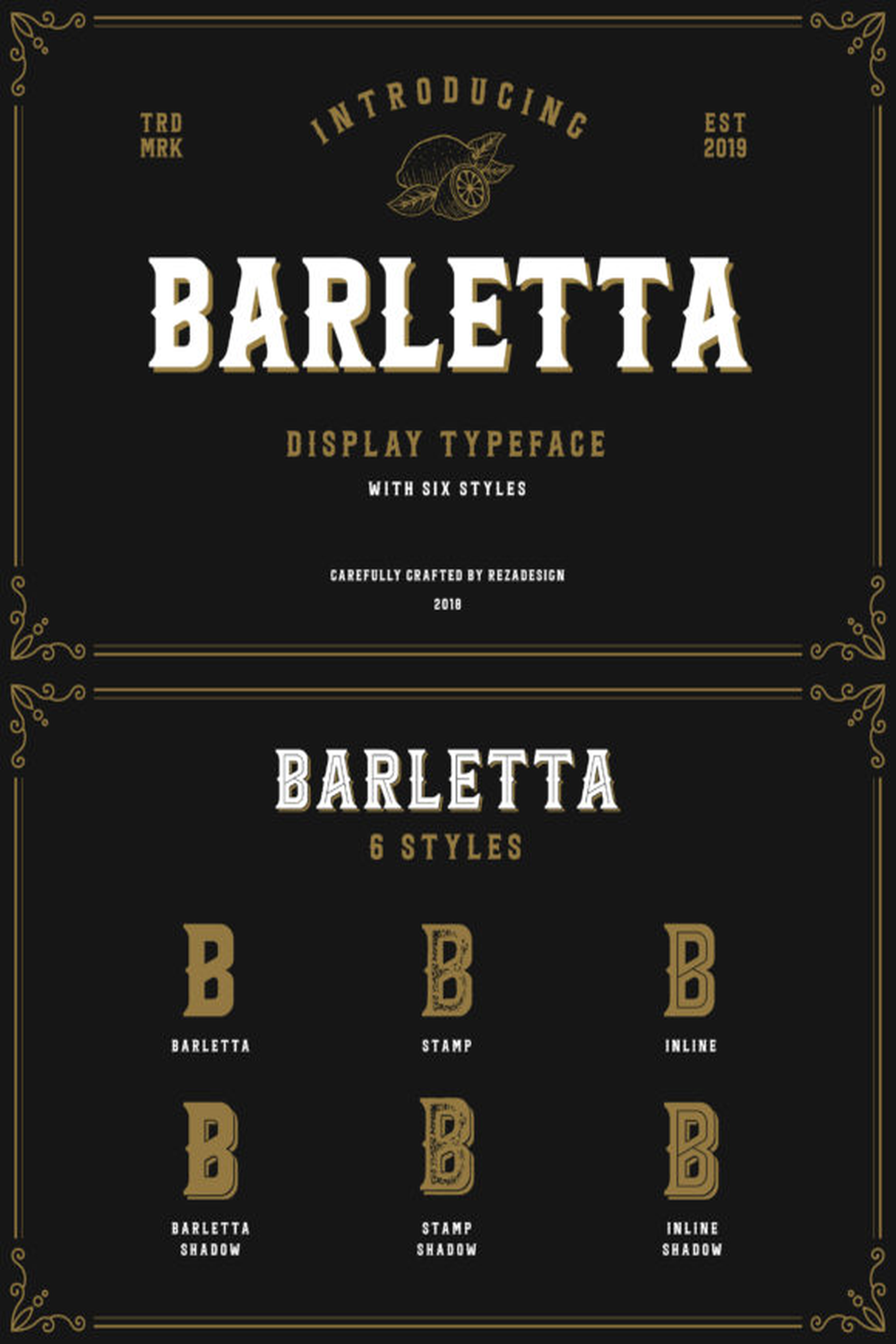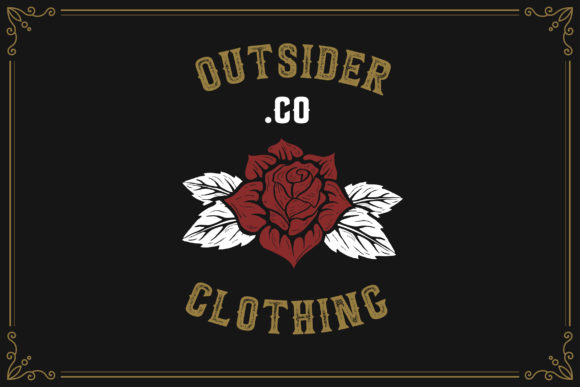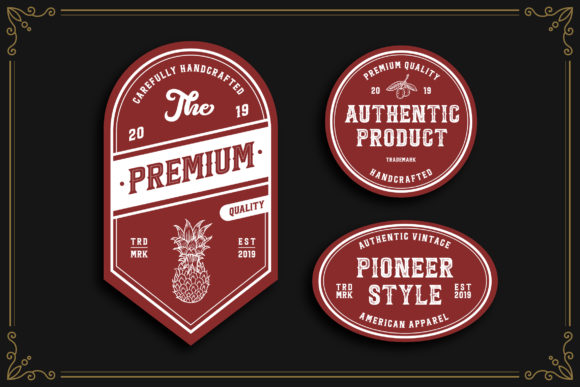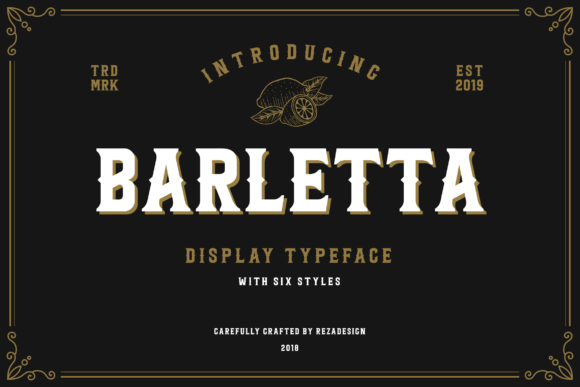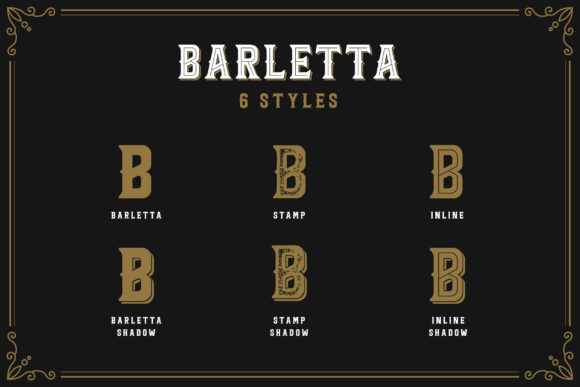
Barletta Font: A Bold Serif Display Font with Vintage Charm & 6 Styles
About the Barletta Font
Make a bold statement with Barletta Font, a powerful and memorable font. Barletta is a beautiful and bold serif font with a vintage charm. Get inspired by its timeless class.